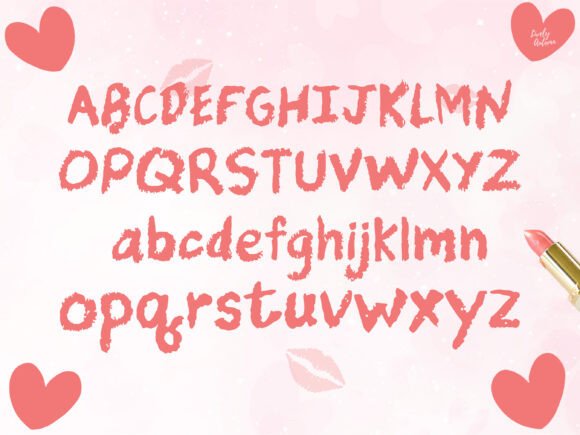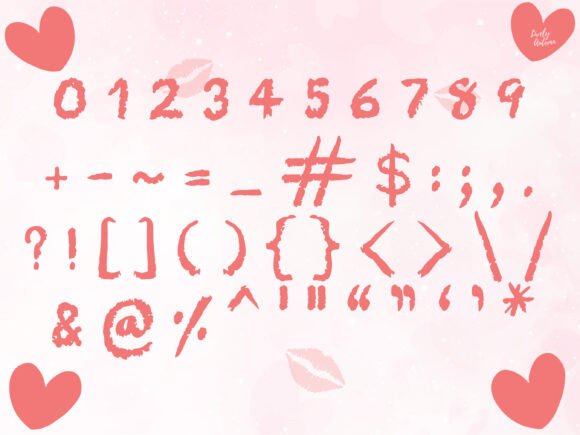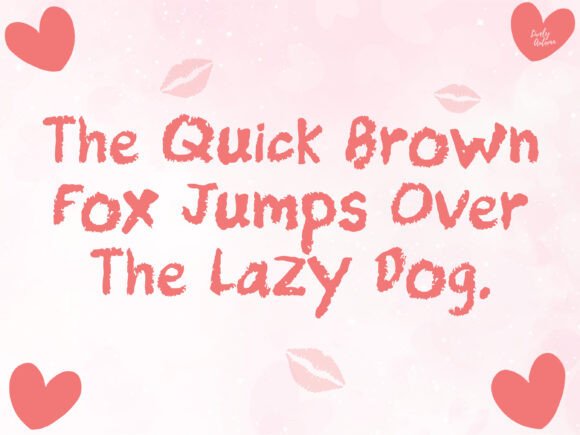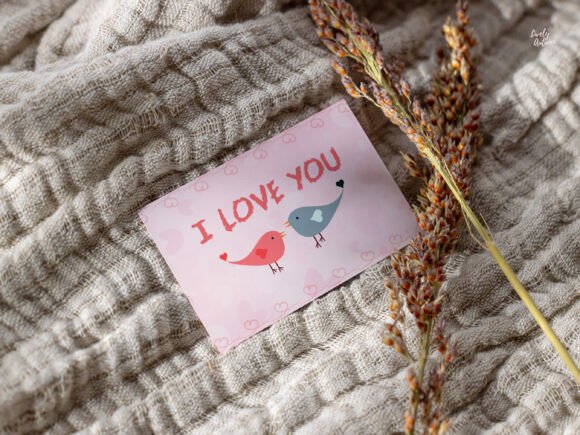
Introduction to Lipstick Font
Do you remember the first time you saw a beautiful, handwritten font used in a design? Perhaps it was a social media graphic or a greeting card that caught your eye. For many of us, handwriting fonts evoke a sense of warmth and personality, making them perfect for creative projects.
One such font that stands out is the Lipstick Font – a unique and eye-catching handwriting font created by writing with lipstick. This quirky design resource is not only fun to use but also adds a touch of whimsy to any project.
Whether you’re working on a Valentine’s Day project, a journal, or social media graphics, the Lipstick Font is a valuable addition to your design toolkit, offering a high-quality, transparent background that’s perfect for designers looking to add a personal touch to their work.
Lipstick Font
- High-quality design resource featuring a bold, playful font ideal for creative projects.
- Transparent background makes it easy to overlay on any image or design.
- Perfect for adding a touch of femininity and whimsy to your designs, with a size range from 12pt to 72pt.
- Designed with a high resolution of 300 DPI, ensuring crisp and clear text in print and digital applications.
- Unique characteristics include a mix of uppercase and lowercase letters, along with a variety of punctuation marks and symbols.
Honest Review: Lipstick Font
As a designer, I’m always on the lookout for unique and high-quality design resources to elevate my creative projects. Recently, I came across the Lipstick Font, and I must say, it’s been a game-changer for me.
Here’s what works well: ✨ The Lipstick Font is incredibly versatile and can be used for a wide range of projects, from fashion and beauty to food and lifestyle. The font is also highly customizable, making it easy to adjust the color and style to suit your design needs.
Another great feature is that the Lipstick Font comes with a transparent background, making it perfect for overlaying on top of images or other design elements. This adds an extra layer of depth and visual interest to your designs.
However, there are a few limitations to be aware of: ⚠️ The font is not as extensive as some other font families, with a limited number of styles and weights. Additionally, the font may not be suitable for use in small sizes or in situations where clarity is crucial.
Overall, I’m really impressed with the Lipstick Font and would highly recommend it to designers looking for a unique and high-quality design resource. With its versatility, customizability, and transparent background, it’s a great addition to any design project.
Here are a few pros and cons to consider:
- ✨ Highly versatile and customizable
- ✨ Transparent background for added depth
- ⚠️ Limited number of styles and weights
- ⚠️ May not be suitable for small sizes or critical clarity situations
Lipstick Font
What is Lipstick Font?
Lipstick Font is a unique and stylish design resource that offers a high-quality, transparent background font perfect for creative projects. With its feminine and elegant feel, it’s an ideal choice for designers looking to add a touch of sophistication to their work.
Getting the Most Out of Lipstick Font
To get the most out of Lipstick Font, use it in conjunction with other design elements to create a cohesive and stylish design. Experiment with different font sizes, colors, and styles to find the perfect combination for your project.
Lipstick Font is perfect for a variety of creative projects, including wedding invitations, fashion designs, and beauty product labels. Its feminine and elegant feel makes it an ideal choice for any project that requires a touch of sophistication.